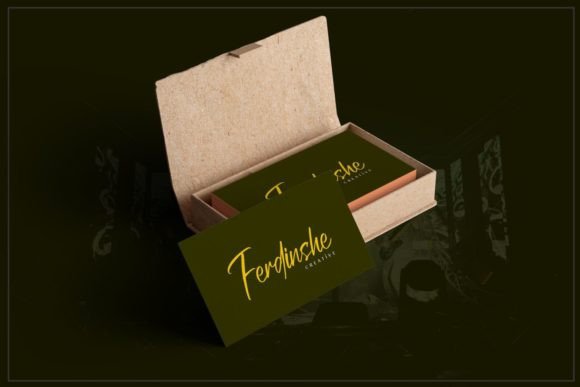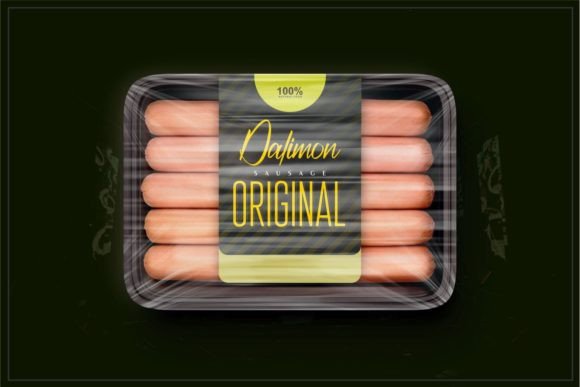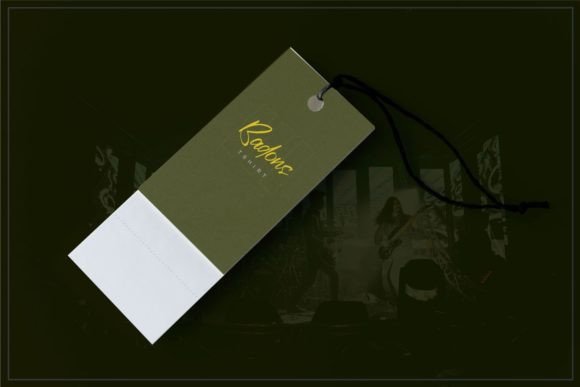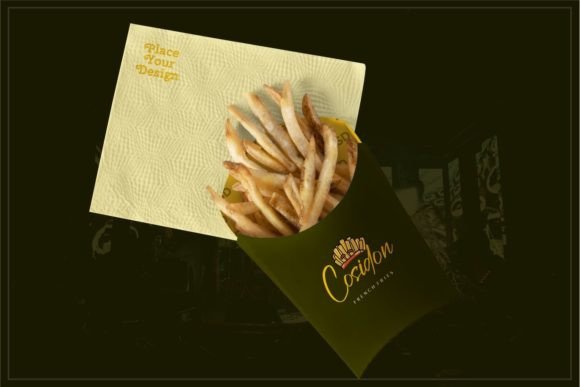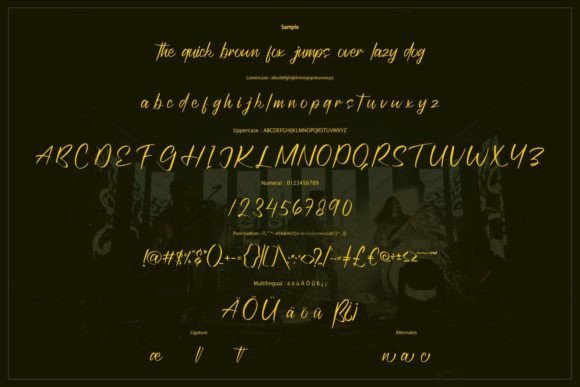
Kallsthon Font
About Kallsthon Font
Introducing Kallsthon, a flowing handwritten font characterized by an elegant touch, making it perfect for your favorite projects. Immerse yourself in the distinct and timeless style of Kallsthon and witness how it brings an unparalleled level of sophistication to your creative designs.
The flowing script of Kallsthon adds a sense of grace and fluidity to your text, making it a versatile choice for various design applications. Its elegance shines through, creating a captivating and refined aesthetic.
Imagine Kallsthon gracing wedding invitations, where its flowing script enhances the romantic and timeless feel. Picture it on branding materials, giving your logo and promotional materials a touch of sophistication and distinction. Envision it becoming the signature font for your creative projects, making them truly spectacular.
Kallsthon is more than just a font; it’s a design element that transforms your projects into works of art. Its distinct and timeless style ensures that your creations stand out with a level of elegance that captivates your audience.